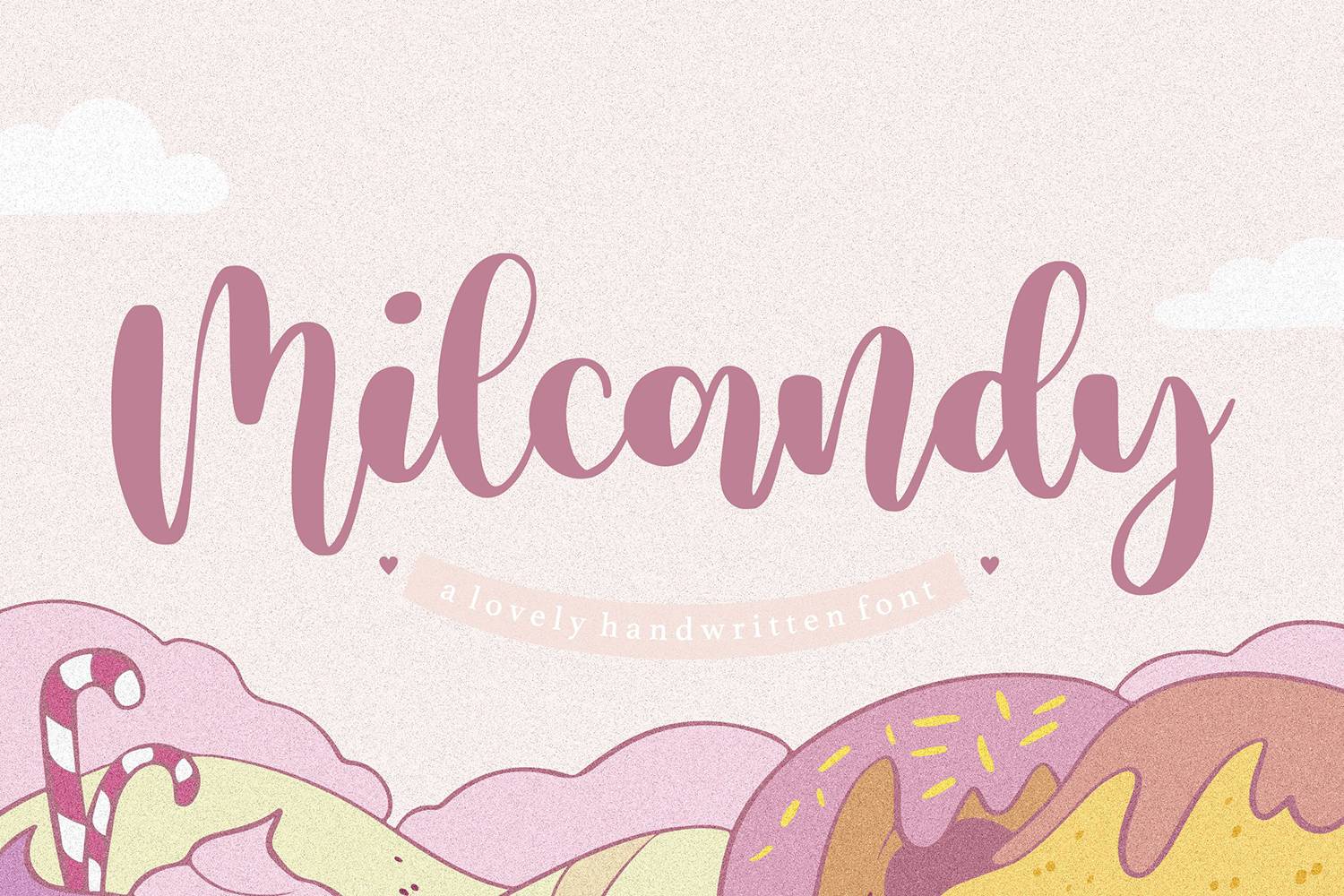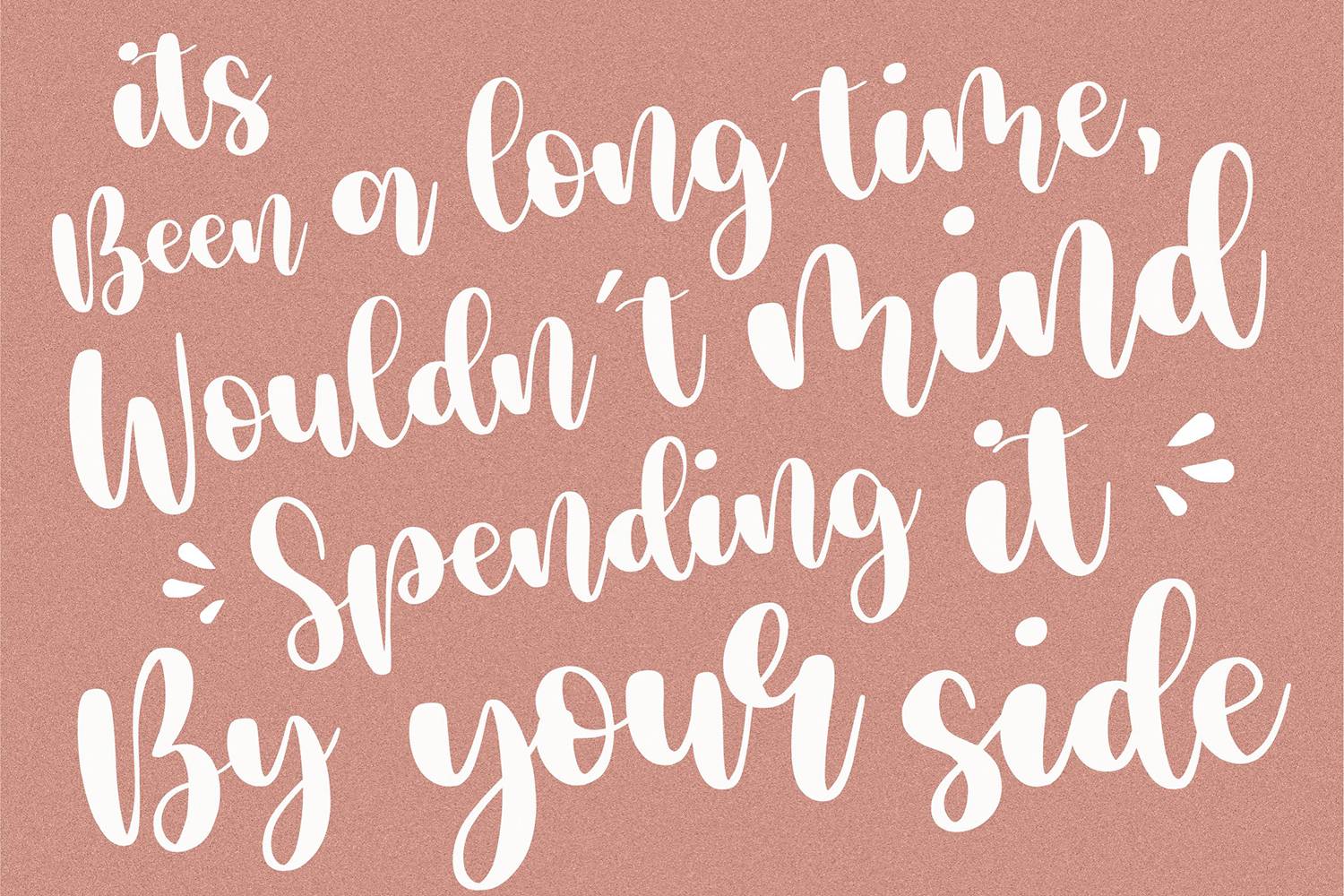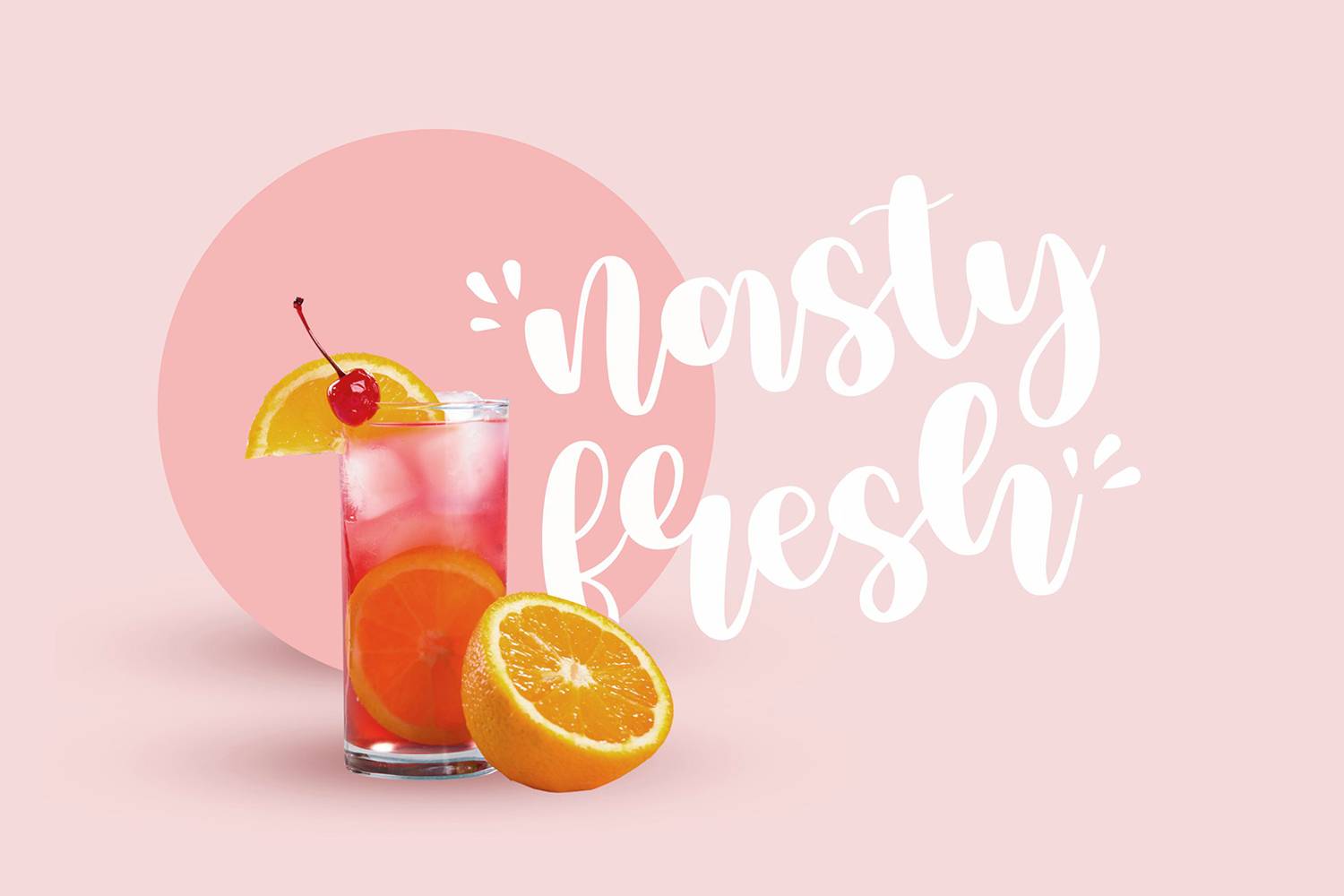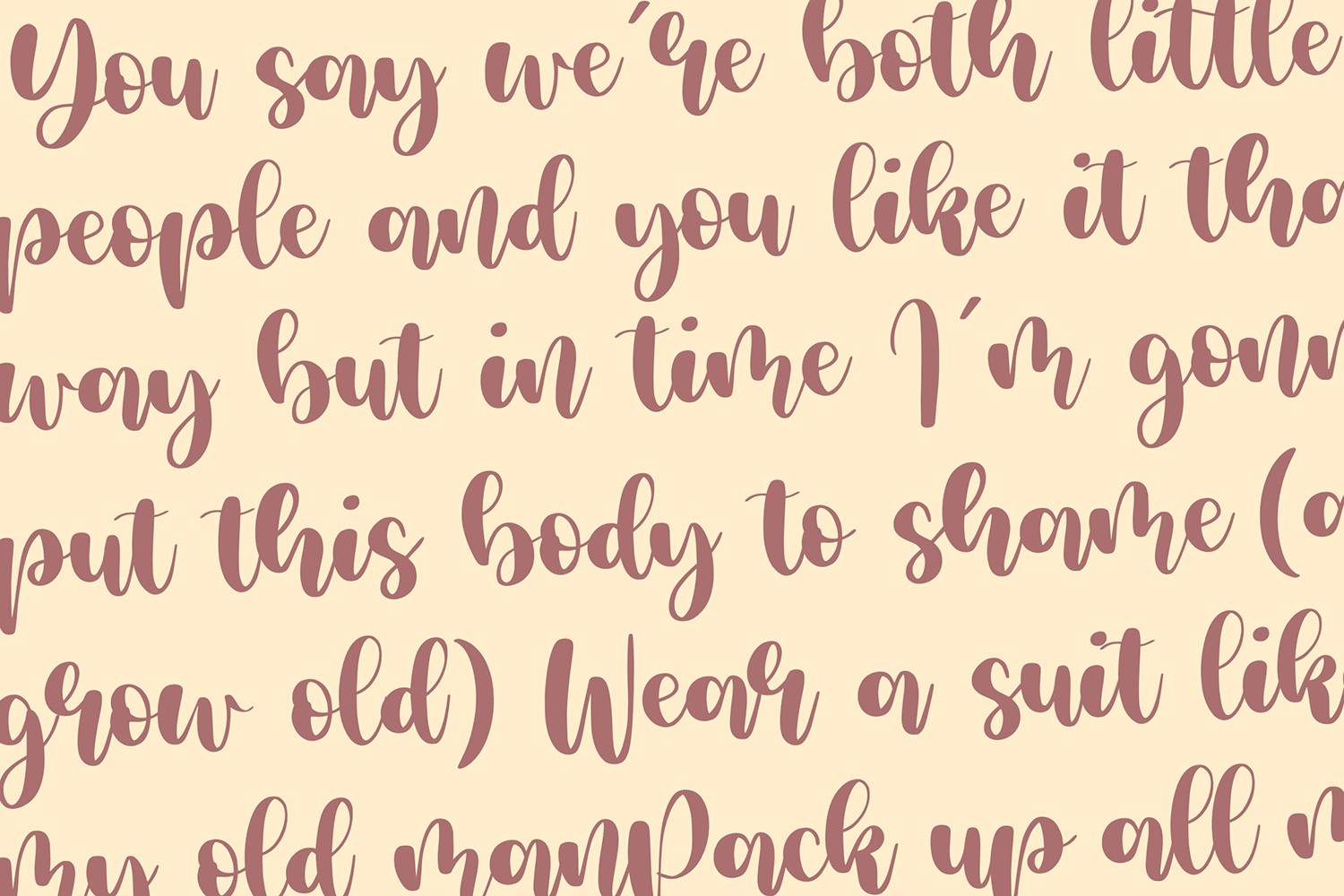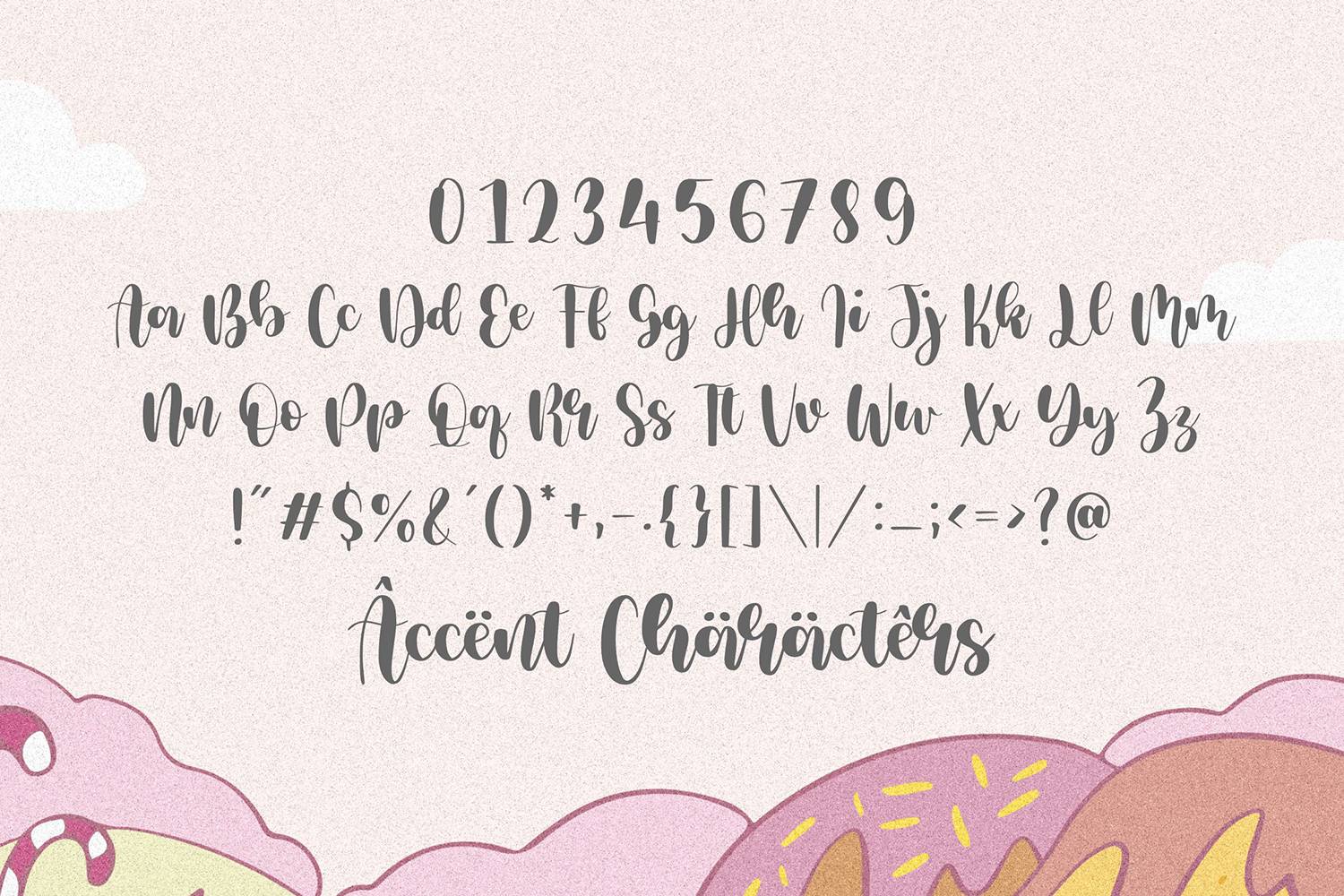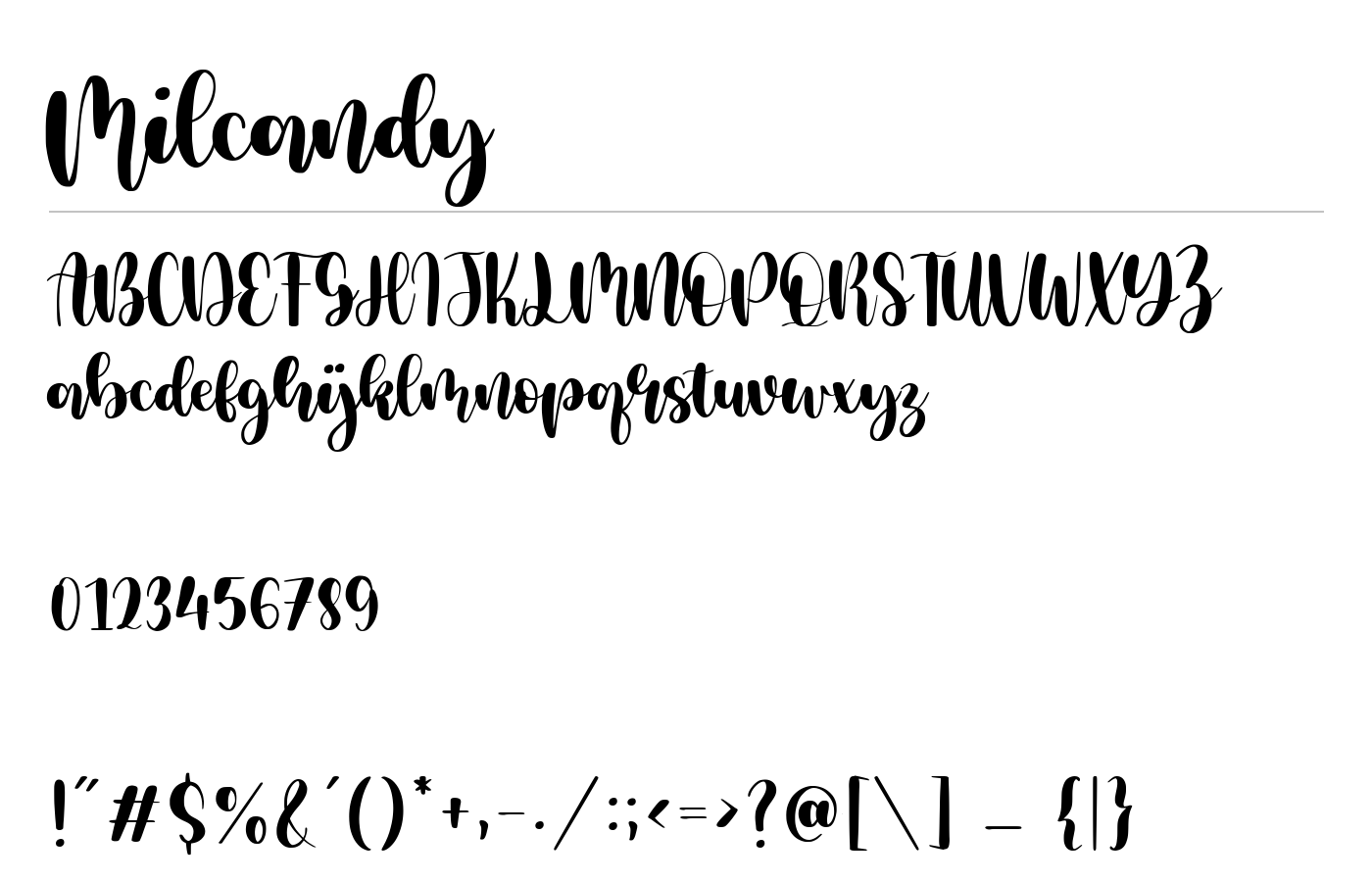
Milcandy is a playful and elegant script font featuring bold, rounded strokes with a lively, hand-lettered feel. Its high contrast and smooth curves give it a charming, whimsical personality, perfect for creative branding, invitations, and eye-catching headlines that want to feel both friendly and stylish. This font works especially well for designs seeking a warm, approachable vibe with a touch of sophistication.
Milcandy Font
About Milcandy Font